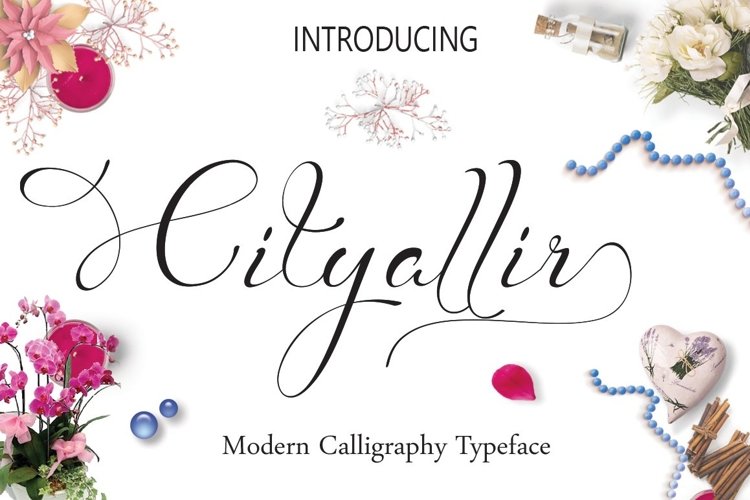
INTRODUCING
Cityallir Script: Is a hand calligraphy, smooth, modern and clasik, calligraphy wavy, which was created to meet the needs of your next design project. Cityallir Script , Can used for various purposes. such as the title, signature, logo, correspondence, wedding invitations, letterhead, signage, labels, newsletters, posters, badges, etc.
Cityallir Script features 564 glyphs and has given PUA unicode (specially coded fonts), can be accessed easily with the character map, can be accessed in full by the lovers of letters or artisans to increase career in the design world.
The Features of this fonts is: Standart ligatures, Stylistic Sets and swashes.